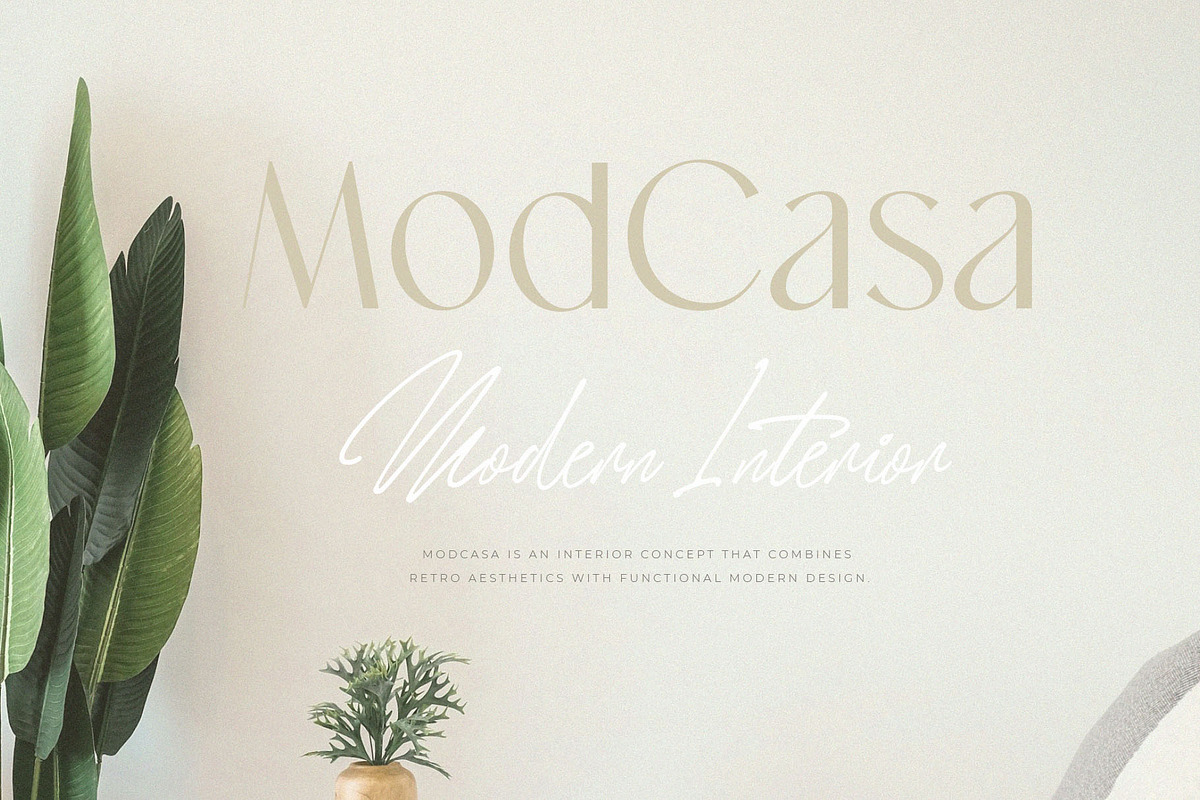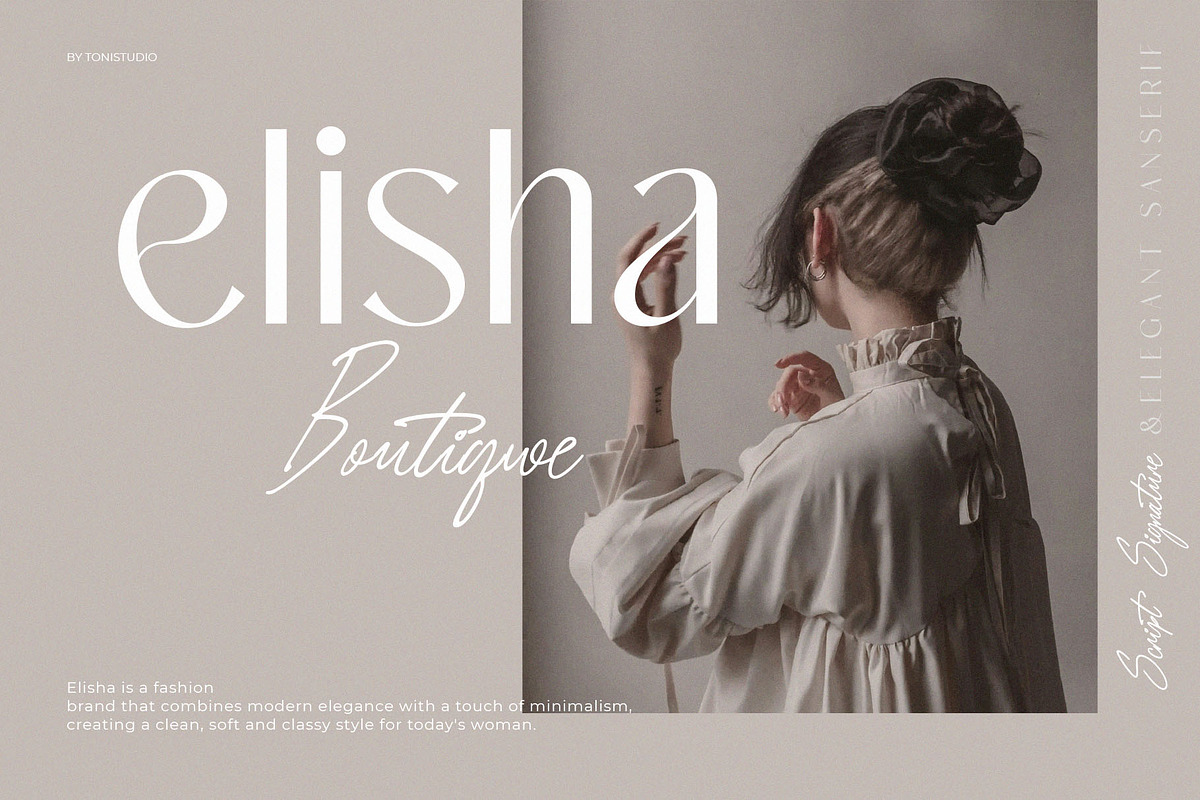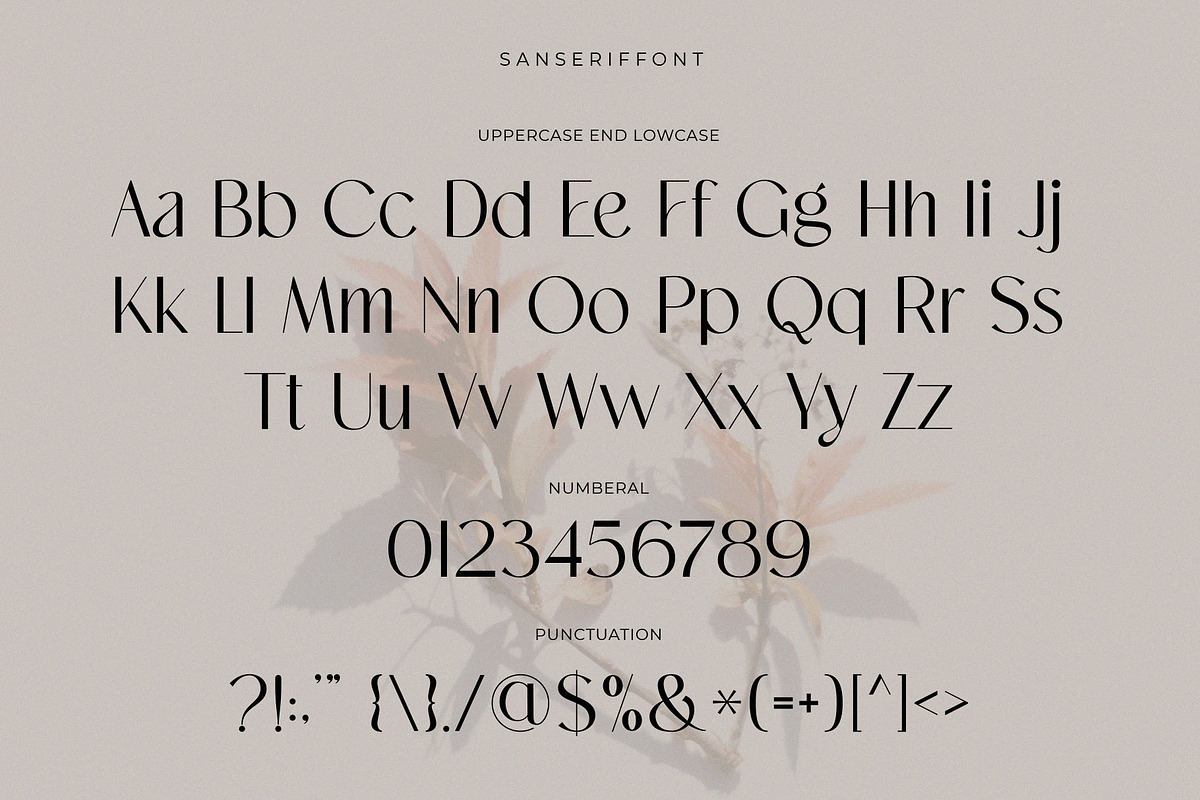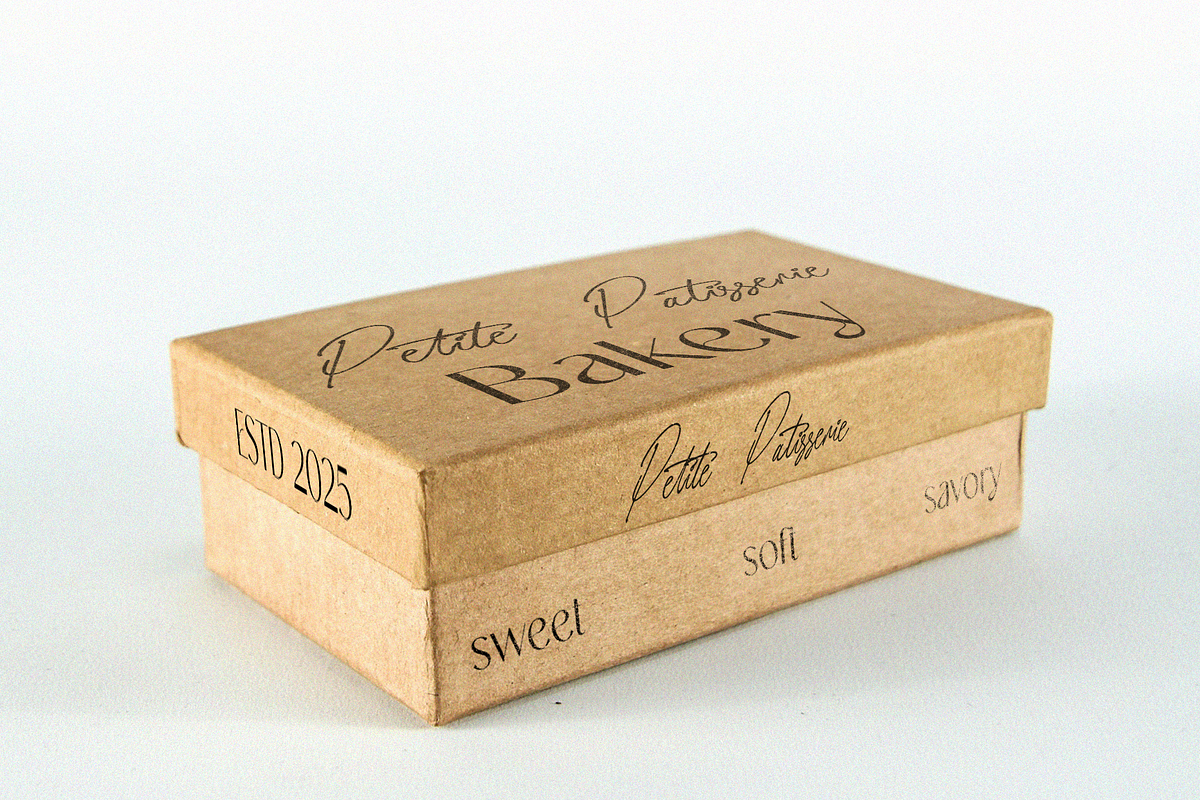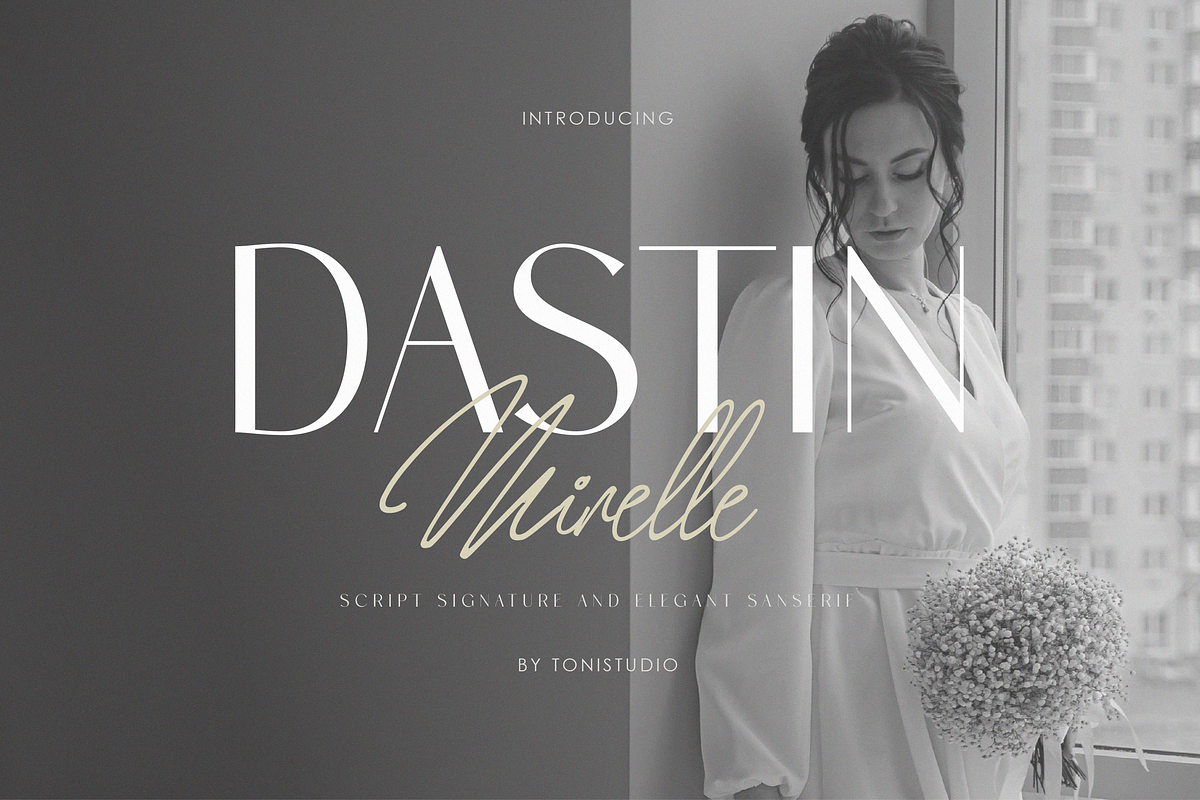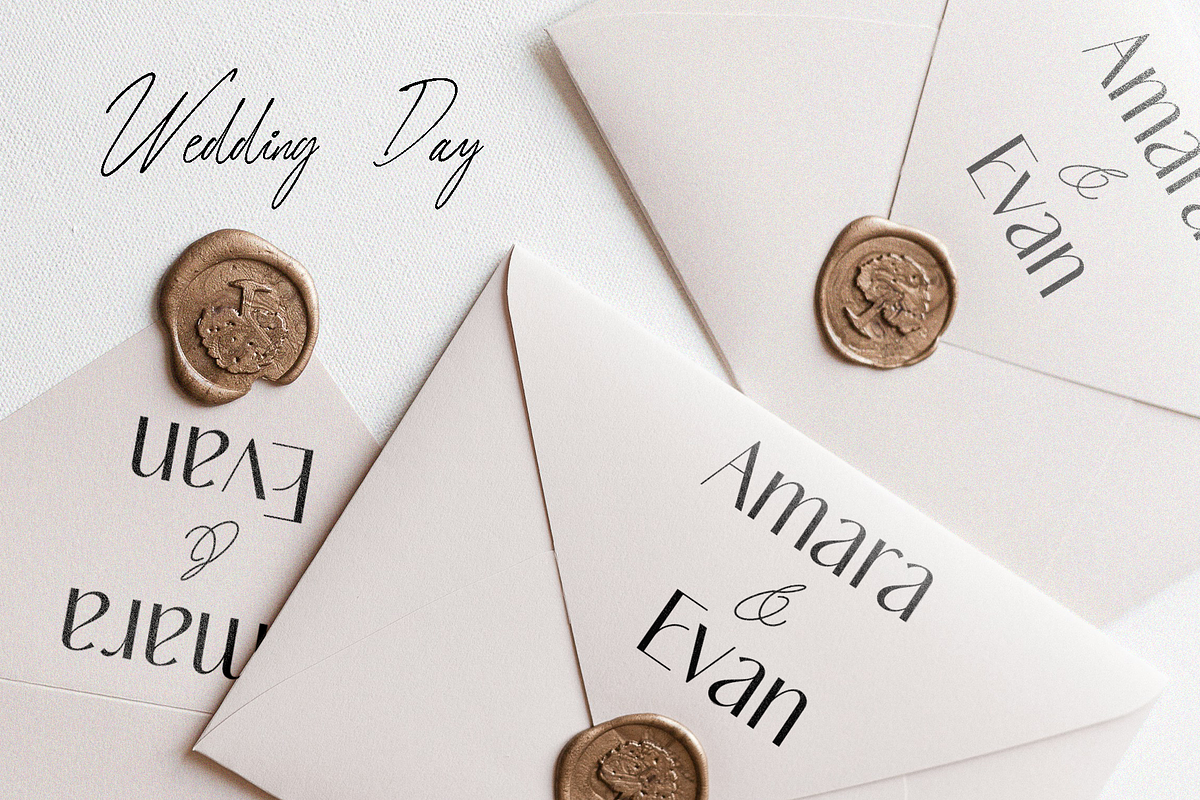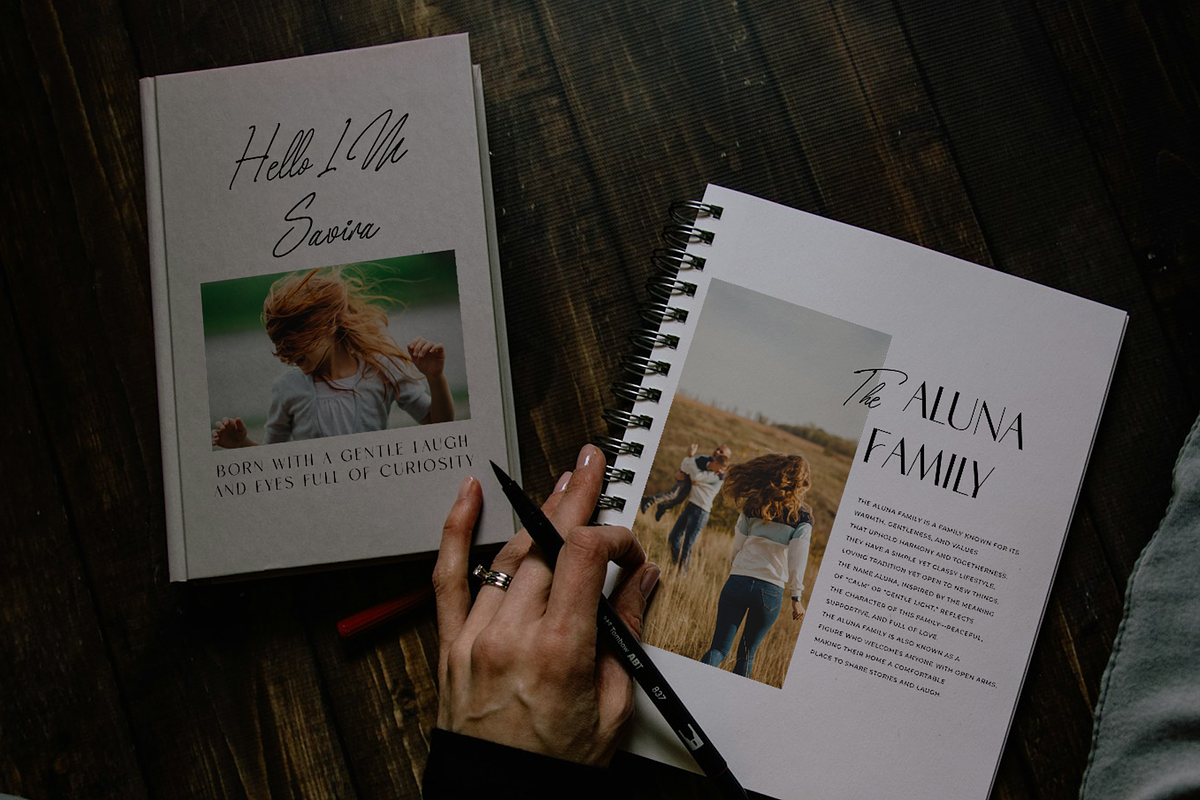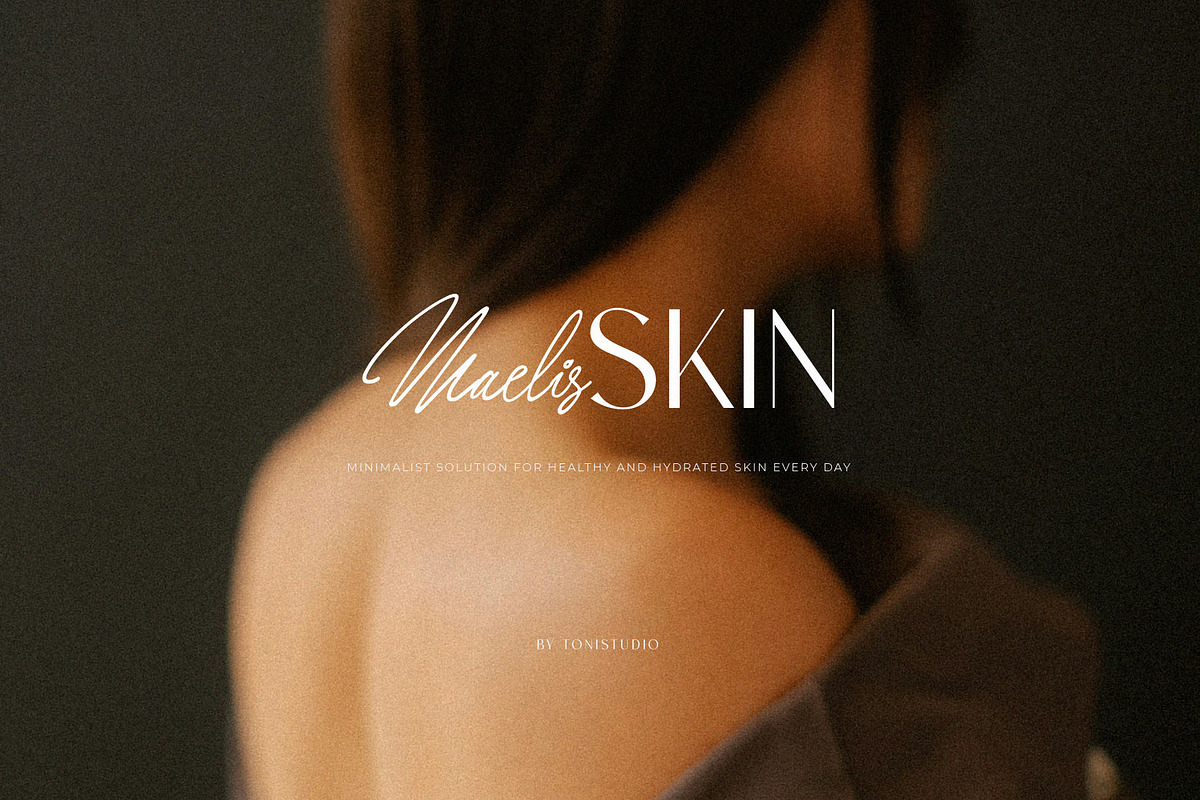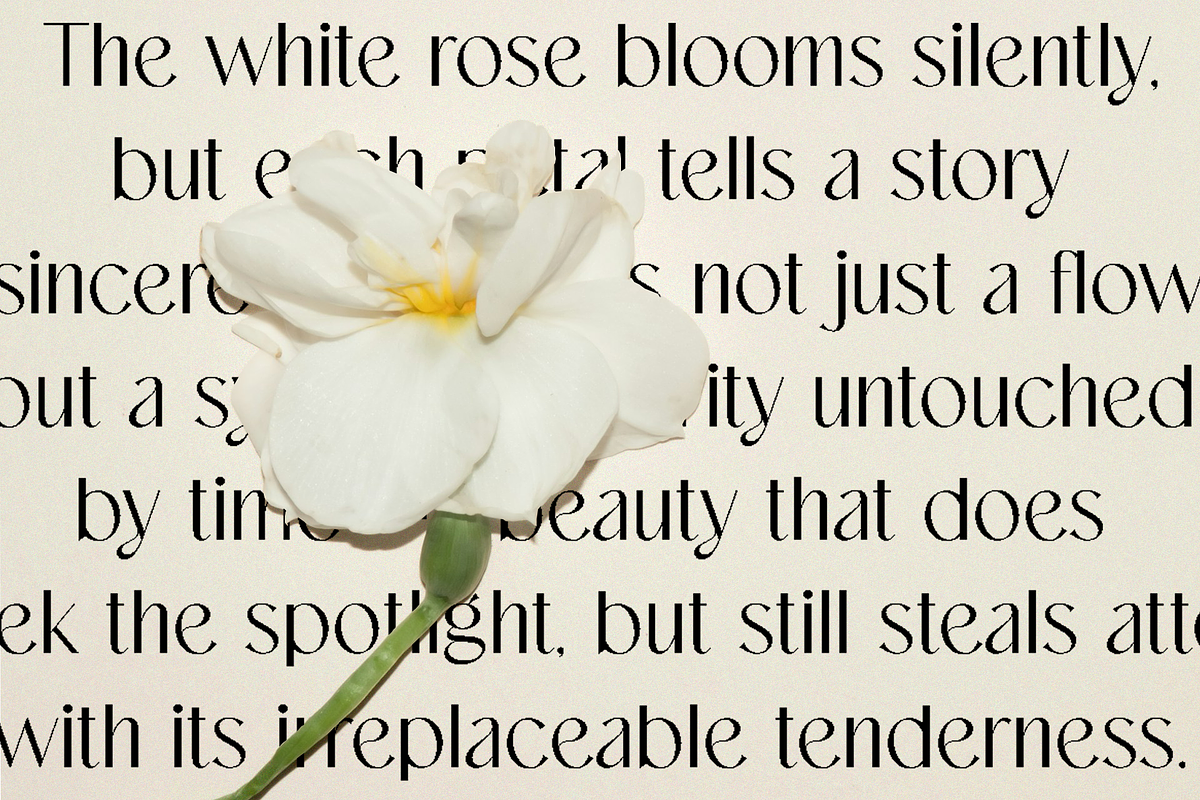
Dastin Mirelle - font duo
Dastin Mirelle Font Duo is a luxurious font duo that gracefully blends a sleek modern sans serif with an elegant signature script, capturing the perfect balance between contemporary style and classic charm. The sans serif features clean lines and refined proportions, ideal for premium branding, editorial layouts, and minimalist packaging. The script font flows effortlessly with soft, handwritten curves and delicate ligatures that exude femininity and sophistication. Use them together or separately to create beautifully cohesive designs that radiate grace, confidence, and timeless elegance. Perfect for Logos & branding,Wedding invitations,Fashion editorials,Beauty product packaging,Instagram content,quotes and much more.
– Dastin Mirelle Sans serif and Signature